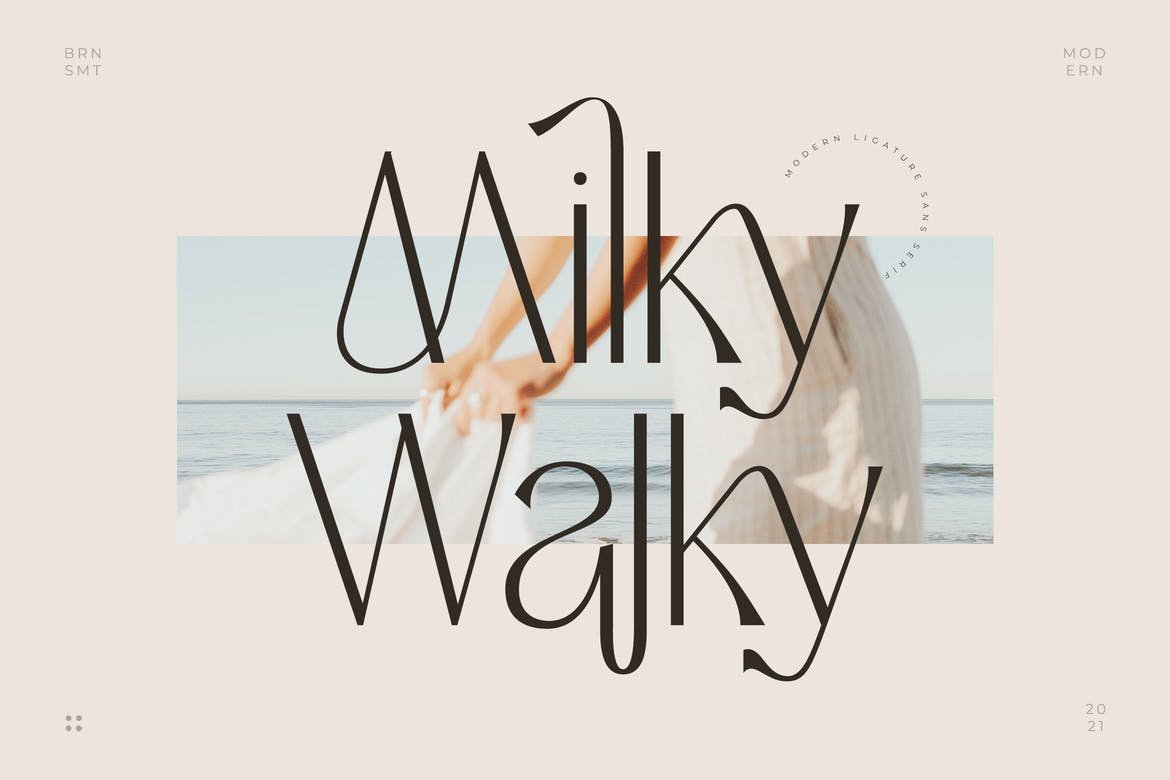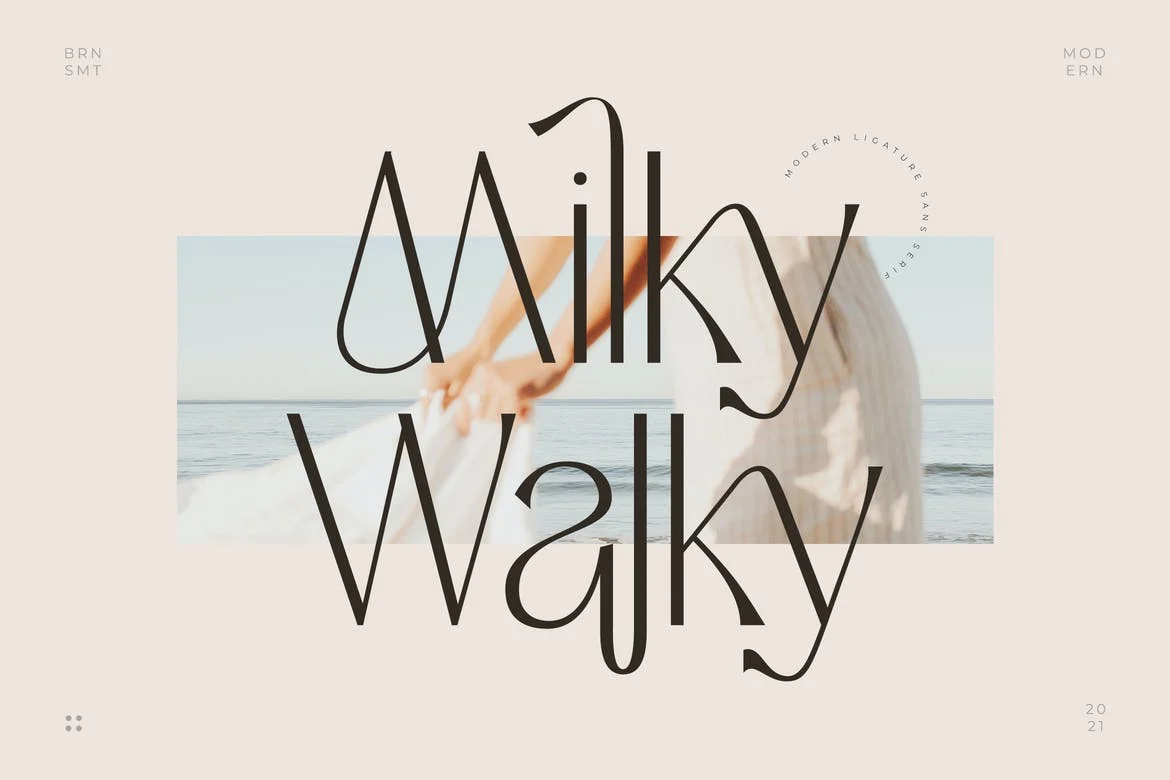
Milky Walky Font is a modern and elegant sans serif font. This font is both modern and nostalgic and works great for logos, magazines, social media. Already matched up and ready to be used together for your next design! For those of you who are needing a touch of elegant, stylish, classy, chic, and modernity for your designs, this font was created for you!
Milky Walky was built with OpenType features and includes ligatures, alternates, numbers, punctuation, and it also supports other languages.